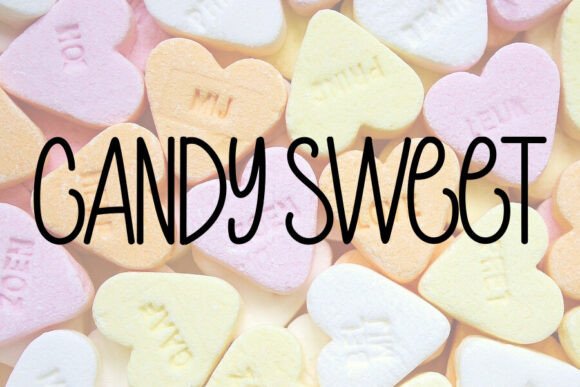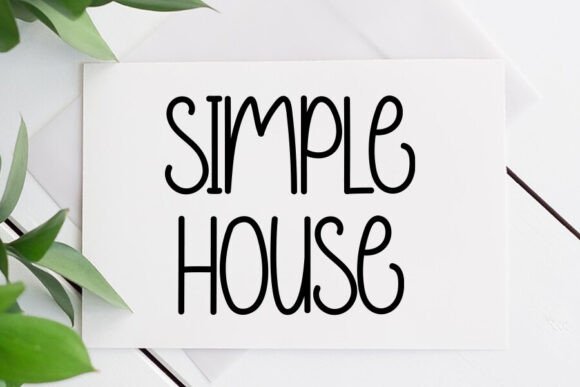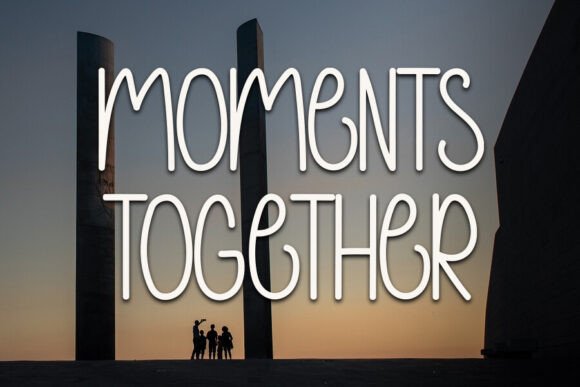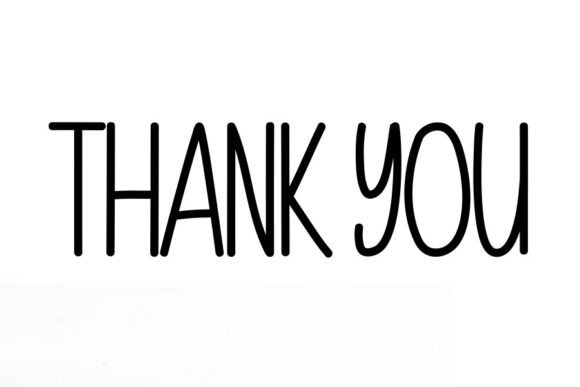
Introducing Generous Font: A Simple yet Versatile Handwritten Font
Are you looking for a font that can add a personal touch to your designs? Look no further than Generous Font, a simple handwritten font that is perfect for a wide range of applications. From greeting cards to headlines, Generous Font is guaranteed to bring a simple and natural feel to your next project.
What is Generous Font?
Generous Font is a carefully crafted handwritten font that exudes a sense of warmth and approachability. Its simplicity makes it an excellent choice for designers and crafters who want to add a personal touch to their work without overpowering the content. The font’s clean lines and flowing curves create a natural and effortless look that is sure to engage your audience.
Key Features of Generous Font
- Simple and Handwritten: Generous Font is a handwritten font that is simple, yet elegant. Its hand-crafted feel makes it perfect for designs that require a personal touch.
- Versatile: This font is incredibly versatile and can be used for a wide range of applications, from greeting cards and invitations to headlines and titles.
- Natural Feel: Generous Font has a natural and effortless look that is sure to add a warm and welcoming feel to your designs.
- Easily Readable: The font’s clean lines and flowing curves make it easily readable, even at small sizes.
Use Cases for Generous Font
Generous Font is perfect for a wide range of design projects, including:
- Greeting Cards: Add a personal touch to your greeting cards with Generous Font. Its simple and natural feel makes it perfect for birthdays, weddings, and other special occasions.
- Headlines and Titles: Use Generous Font to add a touch of elegance to your headlines and titles. Its clean lines and flowing curves make it perfect for magazine covers, blog posts, and other titles.
- Invitations: Generous Font is perfect for invitations, including wedding invitations, baby showers, and other special events.
- Branding and Packaging: Use Generous Font to add a personal touch to your branding and packaging. Its simple and natural feel makes it perfect for food labels, product packaging, and other branding materials.
Why Choose Generous Font?
There are many fonts to choose from, but Generous Font stands out for its simplicity, versatility, and natural feel. Here are just a few reasons why you should choose Generous Font for your next project:
- Unique and Personal: Generous Font has a unique and personal feel that is sure to set your designs apart from the rest.
- Easily Customizable: The font is easily customizable, making it perfect for designers who want to add their own personal touch.
- High-Quality: Generous Font is a high-quality font that is designed to deliver exceptional results.
In conclusion, Generous Font is a simple yet versatile handwritten font that is perfect for a wide range of design applications. Its natural feel, clean lines, and flowing curves make it an excellent choice for designers and crafters who want to add a personal touch to their work. Whether you’re creating greeting cards, headlines, or branding materials, Generous Font is sure to deliver exceptional results.